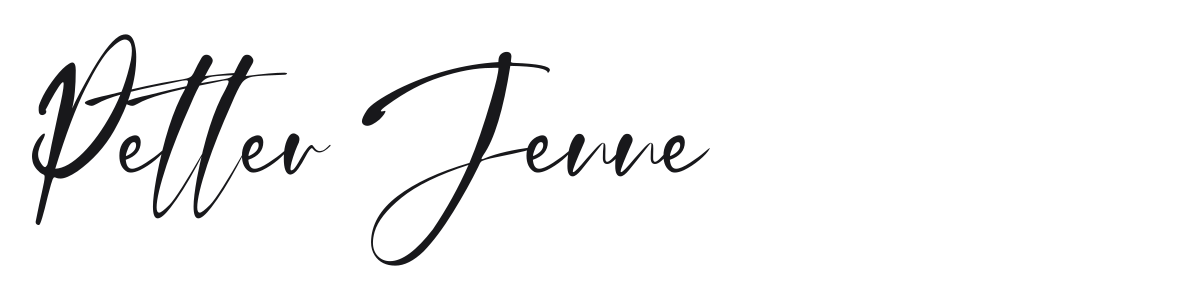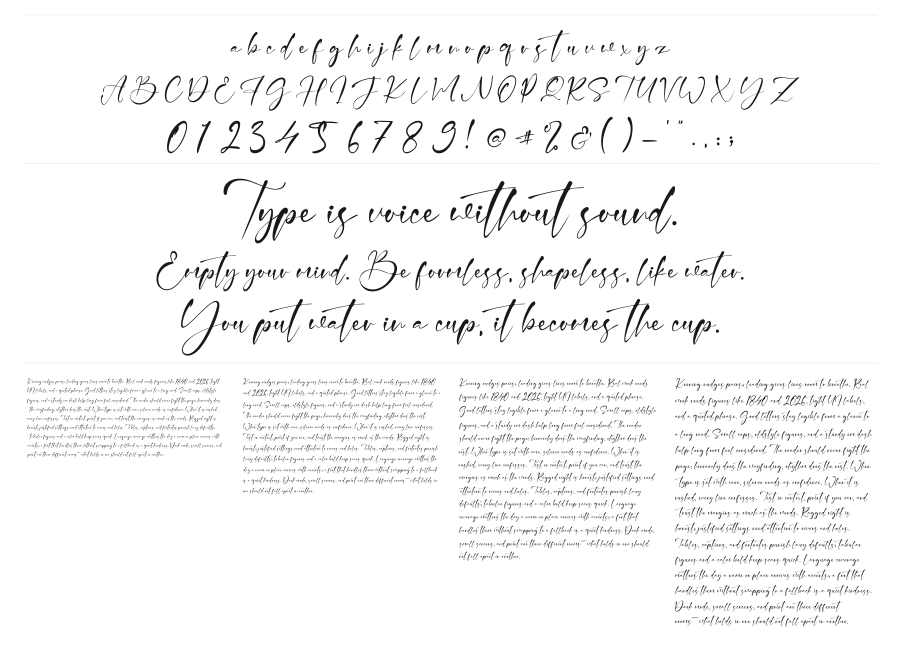
Petter Jenne
by Vztype Studio
Petter Jenne is a casual handwritten script with flowing connections and high contrast between thick downstrokes and delicate hairline upstrokes. The bouncy baseline and sweeping loops give it an easy, natural energy that reads as both romantic and relaxed. It suits wedding stationery, editorial headlines, and lifestyle branding where warmth and personality matter.